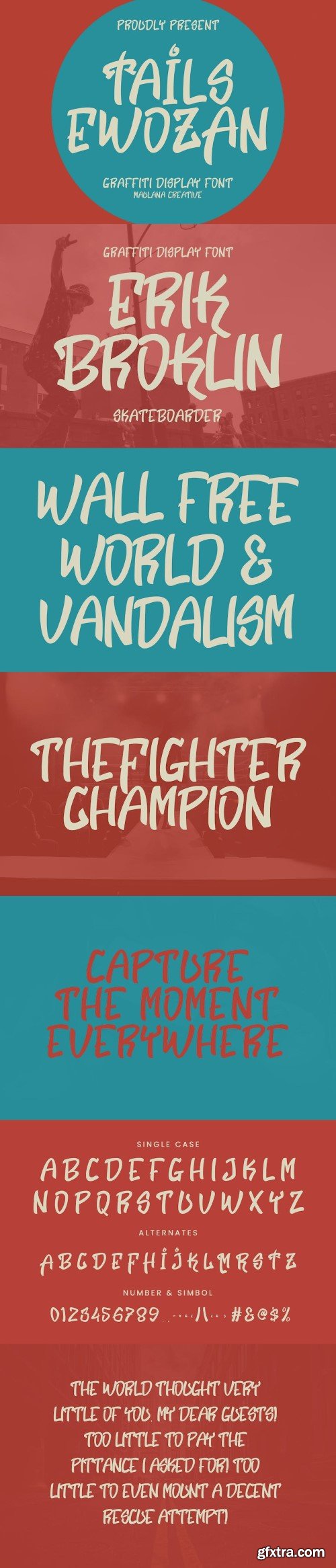
tails ewozan graffiti display font
Tails Ewozan graffiti display font. Bold stroke, fun character with a bit of ligatures and alternates. To give you an extra creative work. Tails Ewozan graffiti display font support multilingual more than 100+ language. This font is good for logo design, Social media, Movie Titles, Books Titles, a short text even a long text letter and good for your secondary text font with script or serif. Make a stunning work with Tails Ewozan graffiti display font.